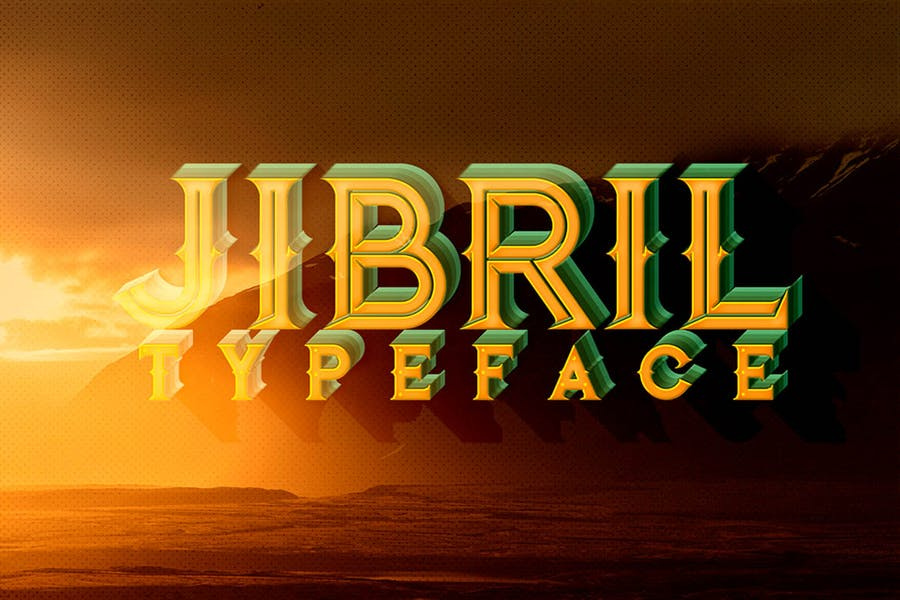
Jibril - Vintage Style Font
Jibril - Vintage Style Font is perfect for heritage brand identities, artisanal product packaging, vintage-inspired cafés, antique shop signage, classic barbershops, traditional craftsman logos, nostalgic advertising campaigns, retro poster designs, old-fashioned restaurant menus, and authentic vintage merchandise.
Jibril - Vintage Style Font creates excitement because it captures the timeless elegance and authentic craftsmanship of bygone eras with its carefully aged letterforms and classic character styling. The font's weathered beauty and nostalgic appeal instantly evoke memories of traditional quality and enduring values, making any brand appear established and trustworthy. Its meticulously crafted vintage details and authentic patina create an immediate emotional connection with audiences who appreciate heritage, tradition, and the lasting quality of time-tested design principles.
This distinguished typeface brings the authenticity of historical typography into contemporary design projects with remarkable period accuracy and character. Jibril - Vintage Style Font Free Download provides designers and heritage brands with access to premium vintage typography that embodies the spirit of traditional craftsmanship and enduring quality. The font's nostalgic appeal and classic design make it ideal for businesses seeking to establish connections with time-honored values and authentic heritage. Whether you're creating branding for artisanal enterprises, designing promotional materials for vintage-themed events, developing packaging for traditional products, or producing content for heritage hospitality venues, this font delivers the genuine vintage atmosphere that resonates with audiences seeking authentic experiences and lasting quality. Its versatile design ensures excellent performance across both traditional print media and modern digital platforms while maintaining the character of original vintage typography. The font excels in applications requiring historical authenticity and traditional appeal. Heritage professionals appreciate its ability to convey established quality and traditional values, essential elements for building trust through authentic vintage aesthetics. The comprehensive character set includes period-appropriate decorative elements and extensive language support, making it perfect for international heritage brands and traditional enterprises seeking to communicate timeless appeal and authentic vintage craftsmanship to diverse global audiences who value genuine tradition and enduring quality.